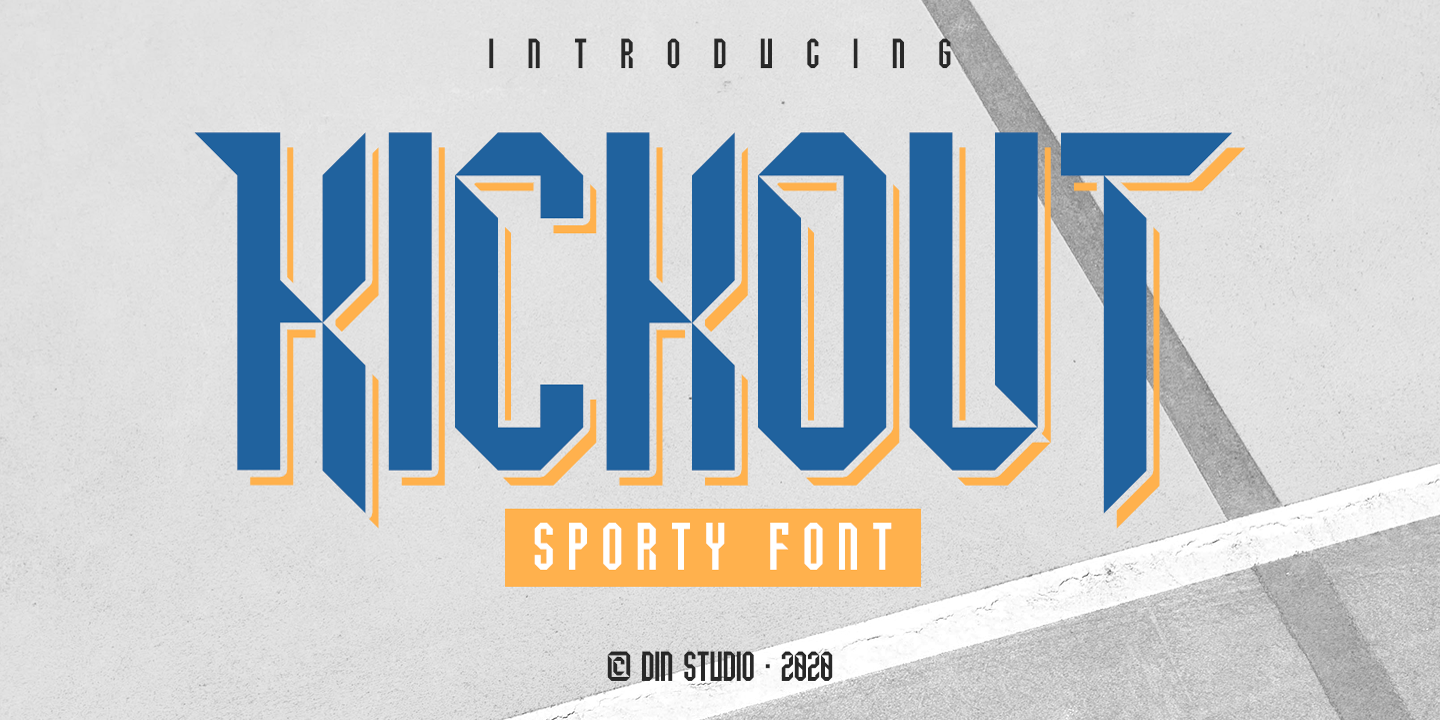
Kickout Font is perfect for martial arts dojo branding, action sports merchandise, combat training facility signage, athletic performance gear packaging, competitive fighting event posters, extreme sports marketing campaigns, fitness boot camp materials, adventure race promotions, warrior training program graphics, and high-energy lifestyle brand communications.
What makes Kickout Font so exciting is its extraordinary ability to capture the explosive power and lightning-fast precision of martial arts combat through dynamically engineered letterforms that seem to strike with the controlled force of a perfectly executed technique and the disciplined intensity of warriors who have dedicated their lives to mastering the art of physical excellence. This font embodies the essence of combat sports and athletic dominance, featuring aggressively styled characters that appear forged in the heat of competition and tempered by countless hours of rigorous training. The kinetic letter shapes create an atmosphere of controlled aggression and competitive fire, making every word feel like it delivers a knockout punch that commands respect and inspires peak performance.
The Kickout Font family includes Light, Regular, Medium, Bold, and Heavy weights, along with condensed and impact variations for maximum force. Each style maintains the font's distinctive combat character while offering versatility for different athletic applications, from subtle training instructions to thunderous championship headlines that celebrate victory and athletic achievement at the highest levels.
This powerful typeface brings authentic martial arts aesthetics to contemporary design projects. The Kickout Font Free Download provides designers with an exceptional tool to create memorable brand identities that communicate strength, discipline, and competitive excellence. Whether you're developing combat sports branding, designing athletic performance materials, or creating warrior lifestyle communications, this font delivers unmatched intensity and martial arts authenticity.
The expertly crafted letterforms in Kickout Font feature sharp angles and flowing strikes that mirror the precise movements of skilled fighters executing perfect techniques with years of dedicated training and unwavering mental focus. Each character has been designed to maintain excellent readability while expressing the explosive power and controlled precision that separate champions from competitors. The font's distinctive personality makes it ideal for applications requiring genuine athletic authority and combat sports credibility.
Athletic industry professionals appreciate how Kickout Font instantly establishes combat credibility and competitive spirit while appealing to audiences seeking authentic training experiences and athletic challenges that push physical and mental boundaries to achieve peak performance. The comprehensive character set includes combat symbols, athletic elements, competitive decorations, and extensive international language support, ensuring global compatibility while maintaining its distinctive martial arts identity. This makes it an invaluable resource for martial arts schools, combat sports organizations, athletic training facilities, and any organization seeking typography that embodies the warrior spirit, disciplined excellence, and the relentless pursuit of personal mastery that defines the greatest fighters and athletes who understand that true victory comes not from defeating opponents, but from conquering the limitations within themselves.